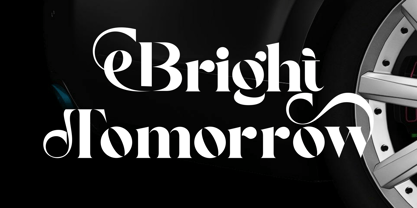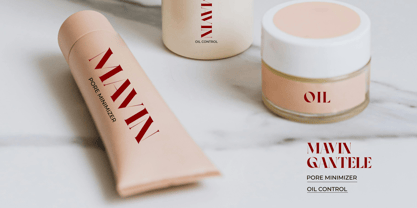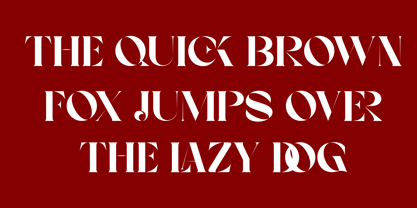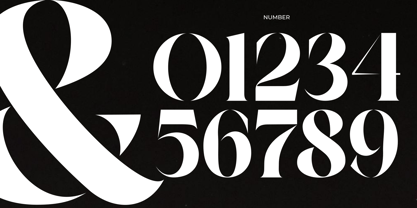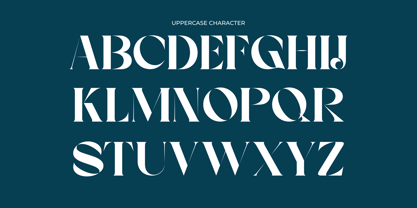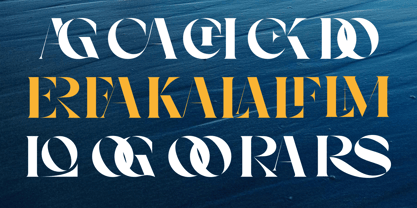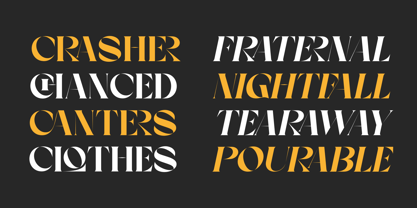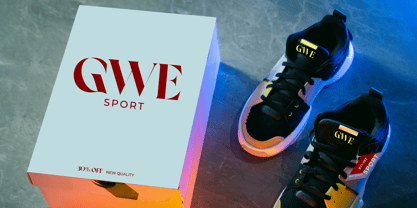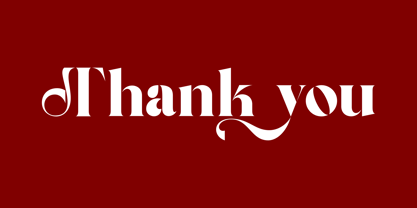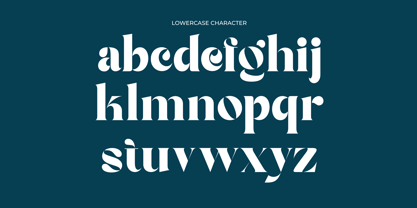
Bright Agnia
by Zaain Type
The Bright Agnia Font Family was designed by Ju Naen and published by Zaain Type. Bright Agnia contains 2 styles and family package options. More about this family
Bright Agnia is a serif font that blends traditional elegance with a dynamic modern feel. With balanced proportions and refined serif details, this font delivers a luxurious, professional, and highly distinctive look.
Available in two styles:
• Regular – A classic and elegant appearance, perfect for body text, editorials, and branding.
• Oblique – A slanted version that adds a bold and dynamic touch, ideal for more expressive designs
Designers: Ju Naen
Foundry: Zaain Type